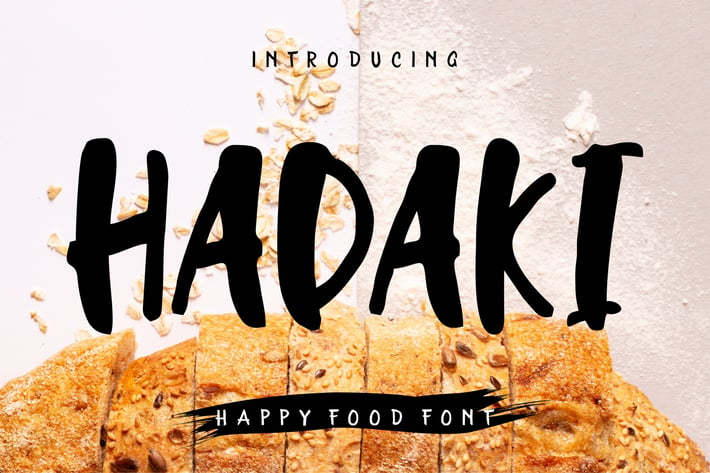
Hadaki - Happy Food Font
Hadaki is perfect to use for Logotype, Letterhead, Poster, Apparel Design, Label and etc.
The alternative characters were divided into several features such as Stylistic Alternates and Ligature.